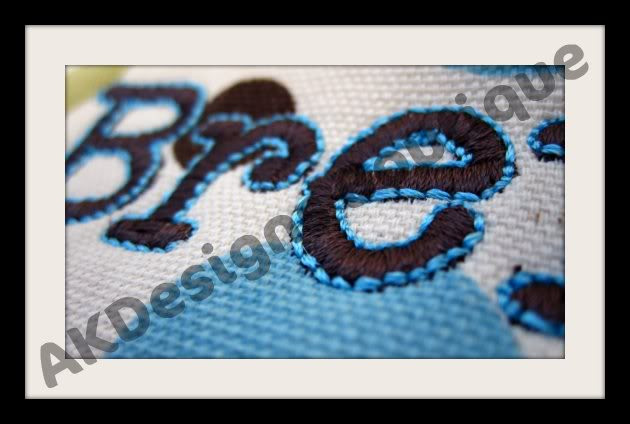
No 1329 Cute Courier Font Machine Embroidery Designs 1 inch high
This set contains 67 designs:
26 Uppercase Letters with Bean Stitch Outline – 1” high
26 Lowercase Letters with Bean Stitch Outline
10 Numbers with Bean Stitch Outline
5 Symbols with Bean Stitch Outline
Designed to combine and spell names